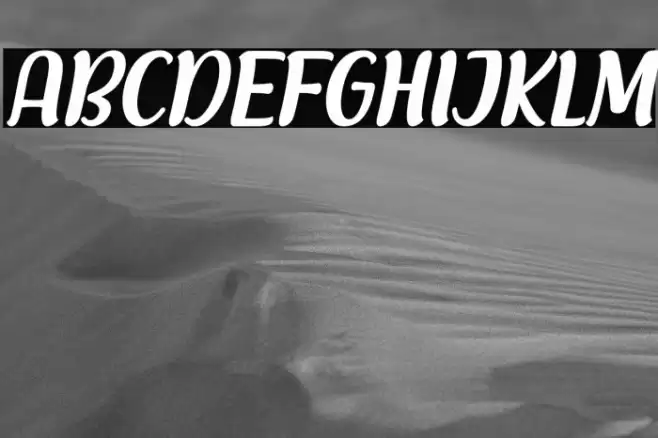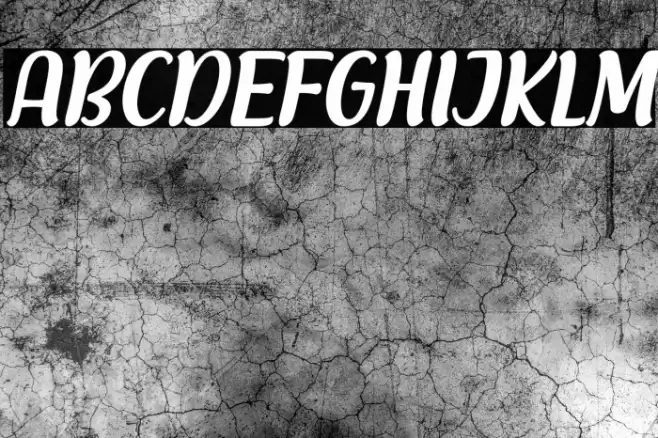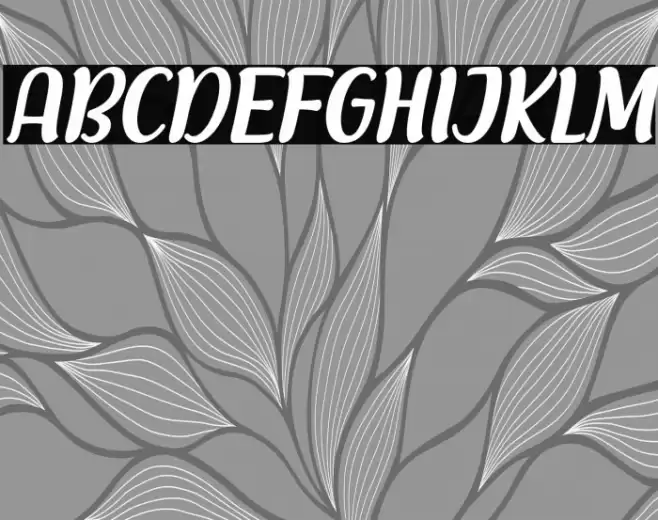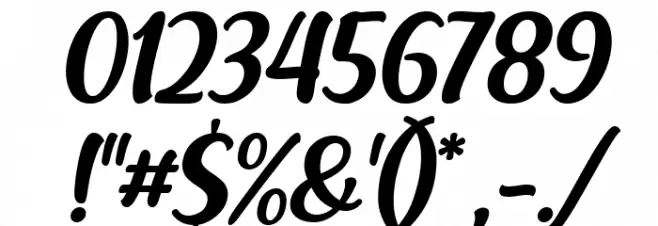
Racy Mango Italic Font
Racy Mango Italic Description
This font features a dynamic and energetic script style with a pronounced italic slant, giving it a sense of movement and flair. The characters are bold and rounded, with smooth curves and a consistent stroke width that adds to its legibility. The uppercase letters are slightly taller than the lowercase, maintaining a harmonious balance. The numerals are clear and distinct, matching the overall style of the alphabet. Special characters are well-integrated, maintaining the font's cohesive look. This font is ideal for projects that require a lively and engaging appearance.
A bold, italic script font with smooth curves and dynamic energy from Uncategorized fonts.